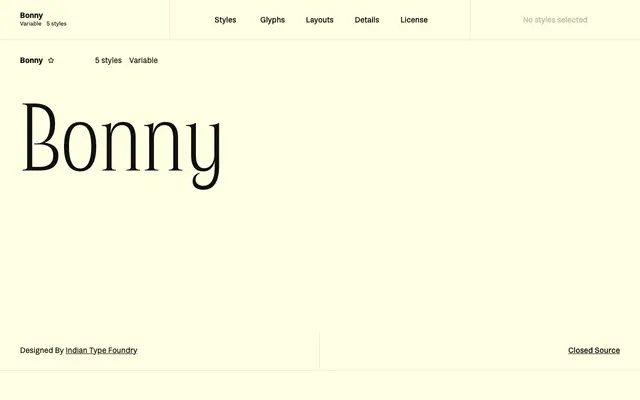
Bonny
A condensed display serif by Barbara Bigosinska with high stroke contrast, flourished terminals and deliberately caricatured uppercase proportions.
Designed by Barbara Bigosinska and released through Indian Type Foundry, Bonny is built for large-scale display use where its details can breathe. The letterforms are strikingly condensed with marked stroke contrast, and thin strokes frequently end in calligraphic flourishes that echo the short, delicate serifs. Uppercase letters such as 'B', 'E' and 'R' are intentionally top-heavy, lending the face an exuberant quality suited to greeting cards, packaging and poster work. Oldstyle numerals, 13 f-ligatures and a contextual alternate 'j' round out a glyph set covering 135 languages.
A highly condensed display serif with strong stroke contrast, flourished terminals and exaggerated proportions typical of decorative display typefaces rather than text serifs.